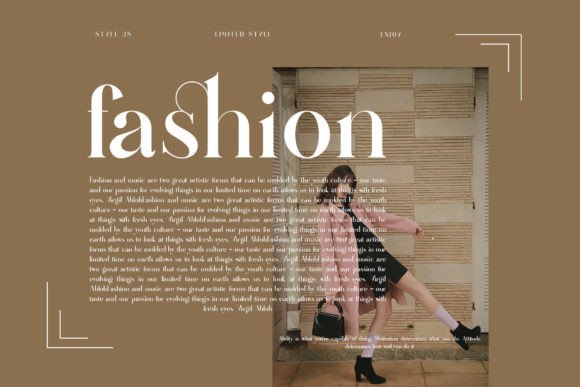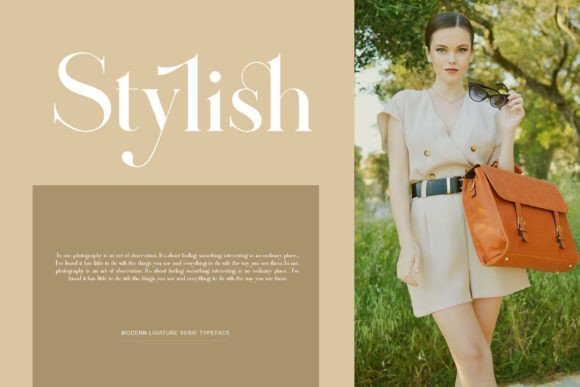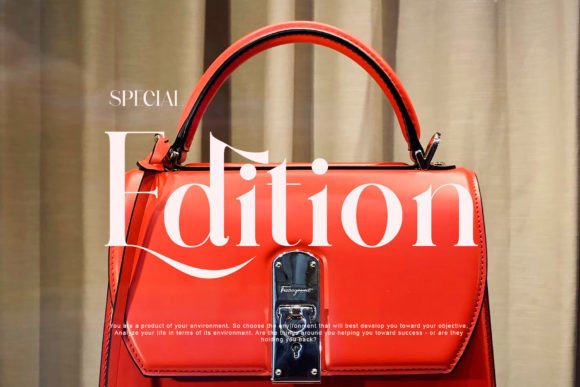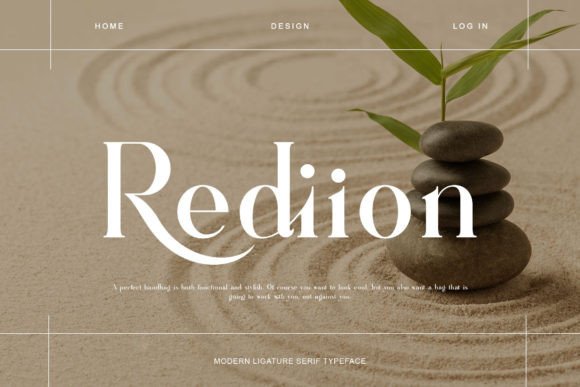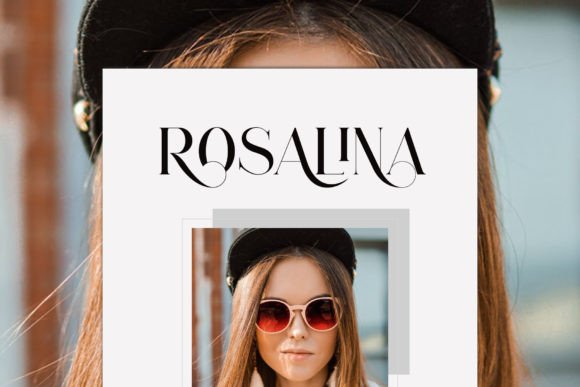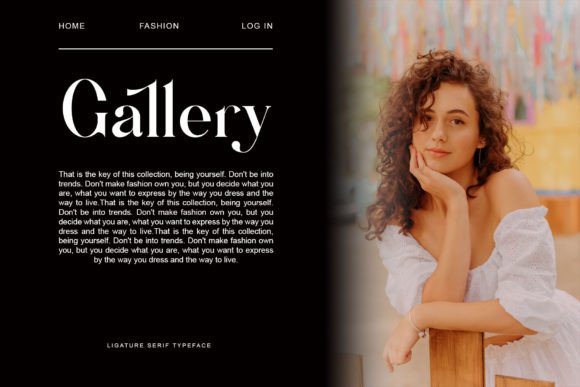
Introduction to Meiya Font
Have you ever stared at a blank canvas, searching for the perfect font to bring your creative project to life? For designers, finding that elusive combination of style and sophistication can be a daunting task. But what if you stumbled upon a font that effortlessly blends modernity with a touch of nostalgia?
Enter the Meiya Font, a high-quality serif typeface that’s poised to become your go-to design resource. With its elegant and classy aesthetic, this font is perfect for logos, magazines, and social media – anywhere you want to add a touch of sophistication to your design. And the best part? The Meiya Font is already matched up and ready to be used together, saving you time and effort in your creative process.
Whether you’re working on a free download or a paid project, the Meiya Font is a valuable addition to any designer’s toolkit. Its transparent background and versatile design make it a great choice for a wide range of creative projects, from editorial to advertising and beyond.
Key Features of Meiya Font
• High-quality design with a unique, modern style, ideal for creative projects and design resources.
• Transparent background, allowing for seamless integration into various design elements.
• Perfect for use in various design projects, including logos, branding materials, and digital graphics.
Honest Review: Meiya Font
I recently came across the Meiya Font and was impressed by its elegant and modern design. The high quality of this font makes it perfect for any creative project, from logo designs to branding materials.
One of the standout features of the Meiya Font is its transparent background, which allows for seamless integration with any background image or color. This makes it a great design resource for designers who want to create visually appealing and cohesive designs.
Here are some of the things that work well with the Meiya Font:
• ✨ Elegant and modern design
• ✨ High quality and crisp typography
• ✨ Transparent background for easy integration
• ⚠️ Limited font styles and weights available
• ⚠️ Not suitable for use in very small font sizes
Overall, I’m impressed with the Meiya Font and would recommend it to designers who are looking for a high-quality, free design resource. It’s a great addition to any designer’s toolkit, and I’m sure it will be a valuable asset for many creative projects.
When using the Meiya Font, keep in mind that it has a transparent background, which can be useful for creating text overlays or designs with a subtle texture. To get the most out of this font, experiment with different font sizes, colors, and styles to find the perfect combination for your design project.
The Meiya Font is suitable for a wide range of creative projects, including graphic design, digital art, and typography-based designs. Its high-quality design and transparent background make it an excellent choice for designers looking for a unique and versatile font.